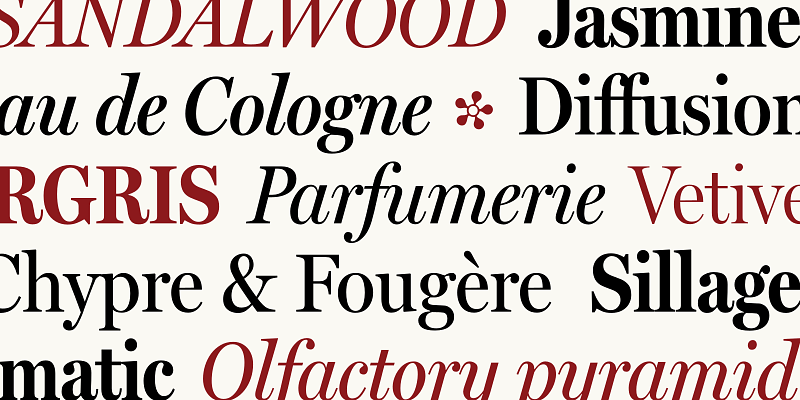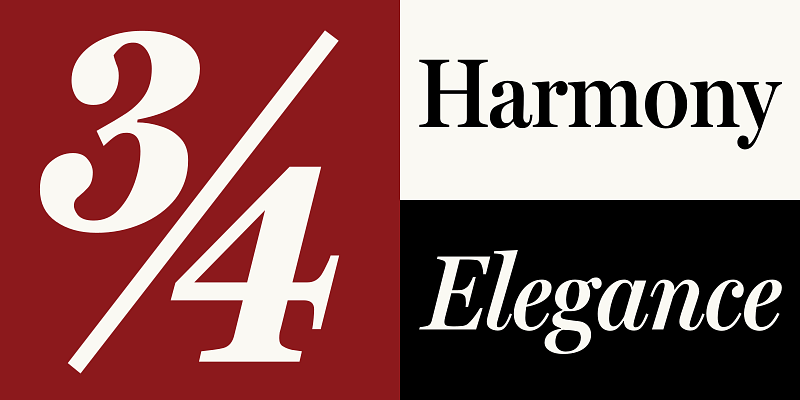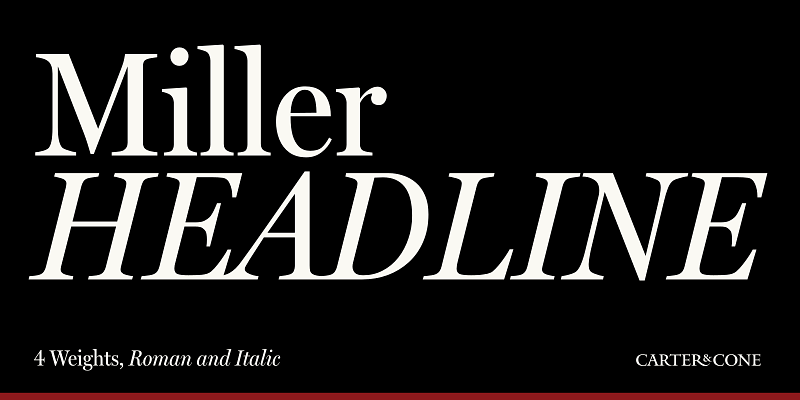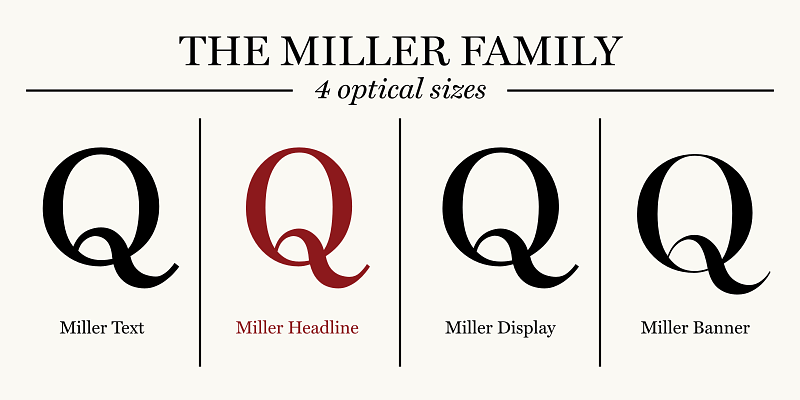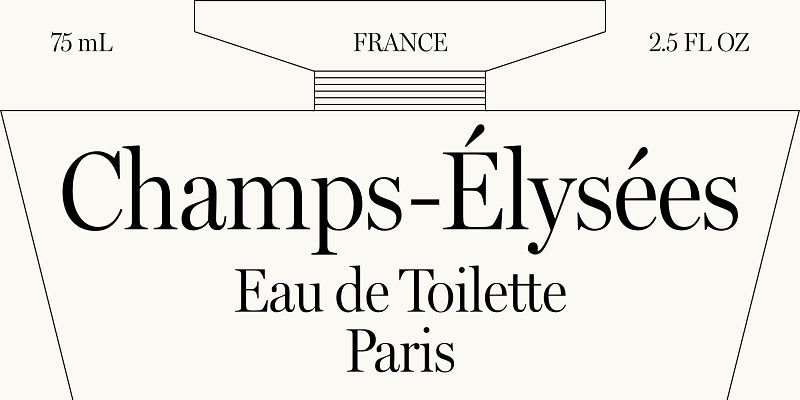
Miller Headline is a reinvigoration of the 19th-century Scotch Roman by Richard Austin in London for foundries in Glasgow—among the first typefaces designed with newspapers in mind. With crisp serifs and refined contrast it gained immediate popularity as narrower headline styles for papers including the Boston Globe. Matthew Carter and Cyrus Highsmith shaped the size to be equally at home in subheads, section titles, and headlines. Available in Light, Regular, Semi Bold, and Bold with Italics.